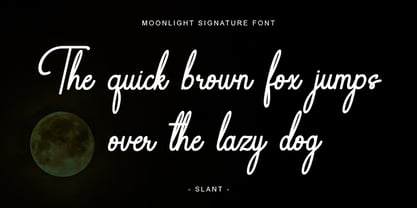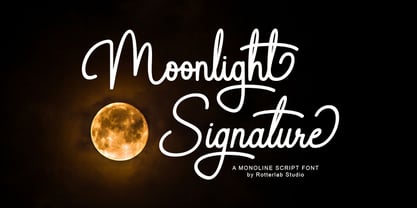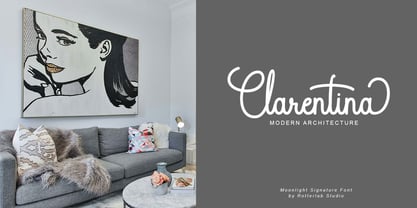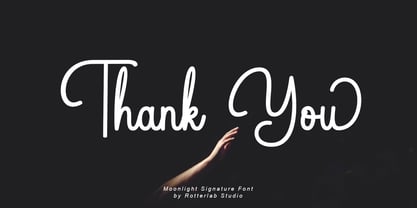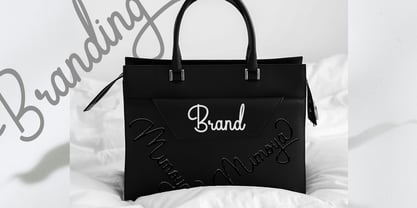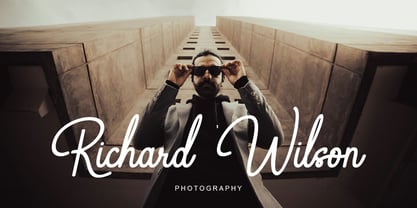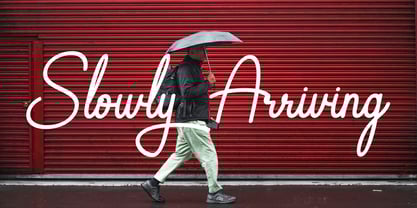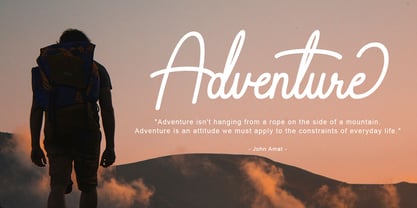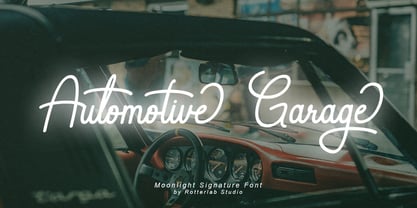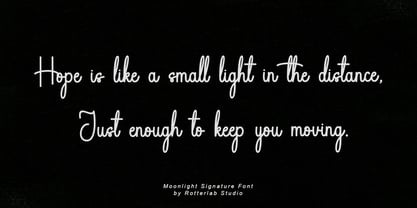
Moonlight Signature
by Rotterlab Studio
The Moonlight Signature Font Family was designed by Sidiq Fahmi and published by Rotterlab Studio. Moonlight Signature contains 2 styles and family package options.
Moonlight Signature is an elegant and casual monoline signature font. It's perfect for branding, logos, wedding invitations, magazines, brochures, and more.
This font features a unique swash set and alternates that will enhance your designs.
• Uppercase + Lowercase
• Numbers + Punctuation
• Swash Feature
• OpenType Feature
• Multilingual Support